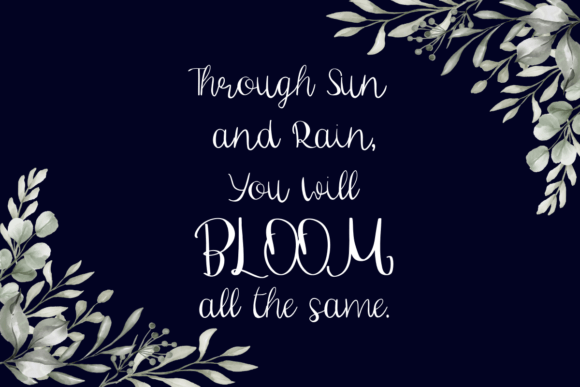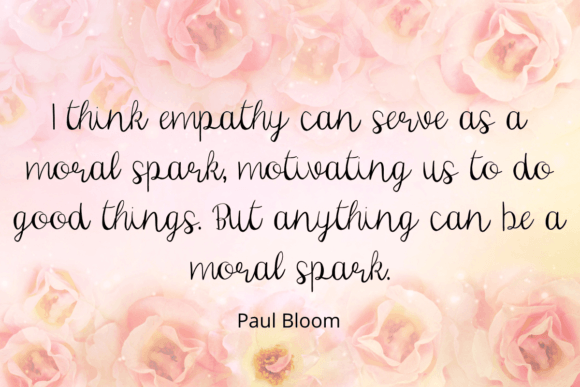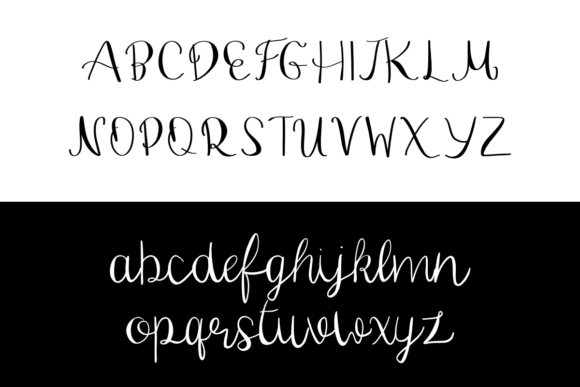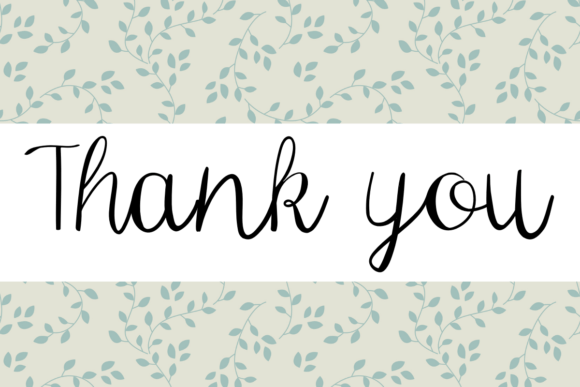
The Bloom Font: A Charming Script for Creative Projects
Have you ever been in the middle of a design project, and suddenly, you’re stuck on finding the perfect font? I recall a recent experience where I was working on a branding project for a florist, and I just couldn’t find a script font that captured the elegance and playfulness I was looking for. That’s when I stumbled upon the Bloom font, and it instantly became my go-to choice.
A Personal Review of Bloom Font
What I Love About Bloom Font
- ✨ Elegant and stylish script font perfect for logos, branding projects, labels, photography, watermarks, and special events.
- ✅ Beautifully crafted letters with a charming and whimsical feel.
- 💫 Supports OpenType features, glyphs, and stylistic alternates, giving you plenty of creative options.
- 🌈 Versatile and can be used for both digital and print projects.
While I absolutely love the Bloom font, there are a few minor quirks to be aware of:
- 🤔 Some users might find the font a bit too ornate for very small text sizes or body text.
- ⚠️ Limited language support, so make sure to check the character set before using it for multilingual projects.
The Story Behind Bloom Font
Bloom font was designed with the intention of creating a beautiful, elegant script font that captures the essence of flowers and blooming gardens. The designer aimed to create a font that’s both stylish and approachable, perfect for a wide range of creative projects.
Q: Is Bloom font suitable for body text?
A: While Bloom font is beautiful, it’s recommended to use it for headings, titles, and short text. For body text, you might want to choose a font with better readability.